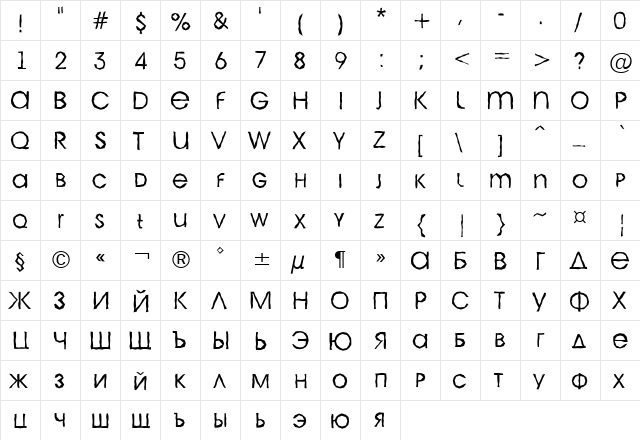
a_AvanteCpsLCBrk Light
Design Context for a_AvanteCpsLCBrk Typeface
a_AvanteCpsLCBrk is a composed and adaptable typeface that performs quietly and consistently across a wide range of design contexts. The delicate stroke weight brings airiness and refinement to layouts.